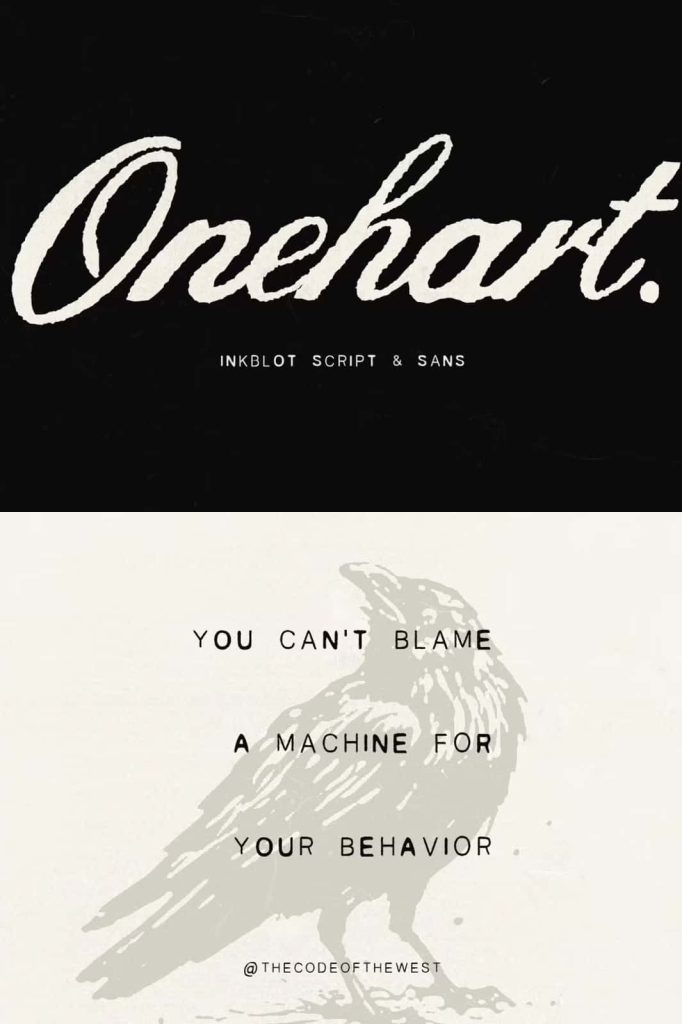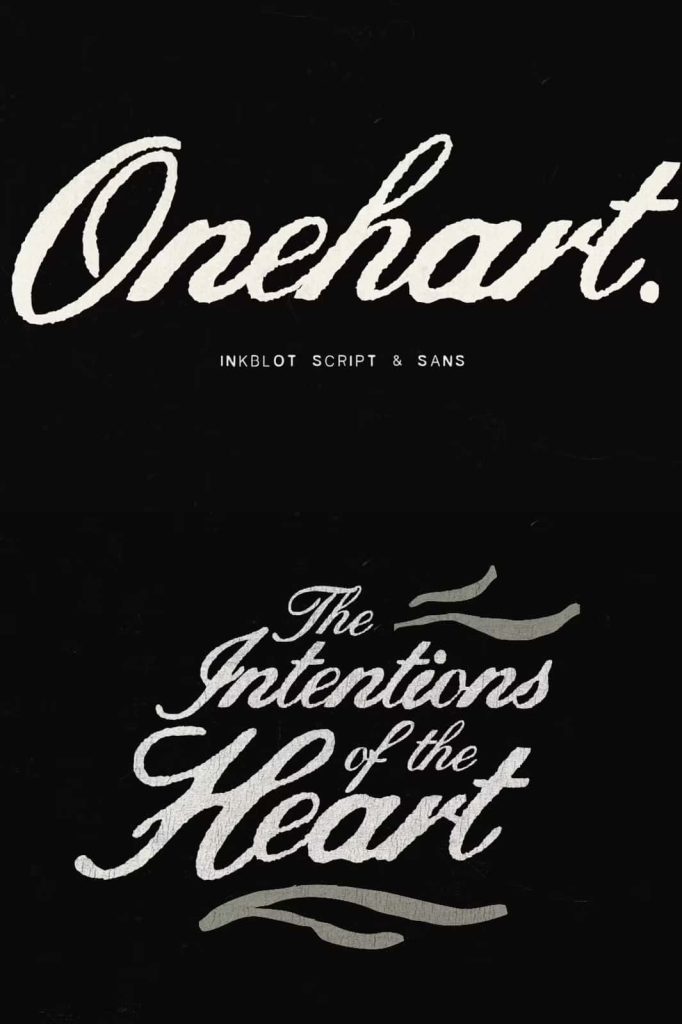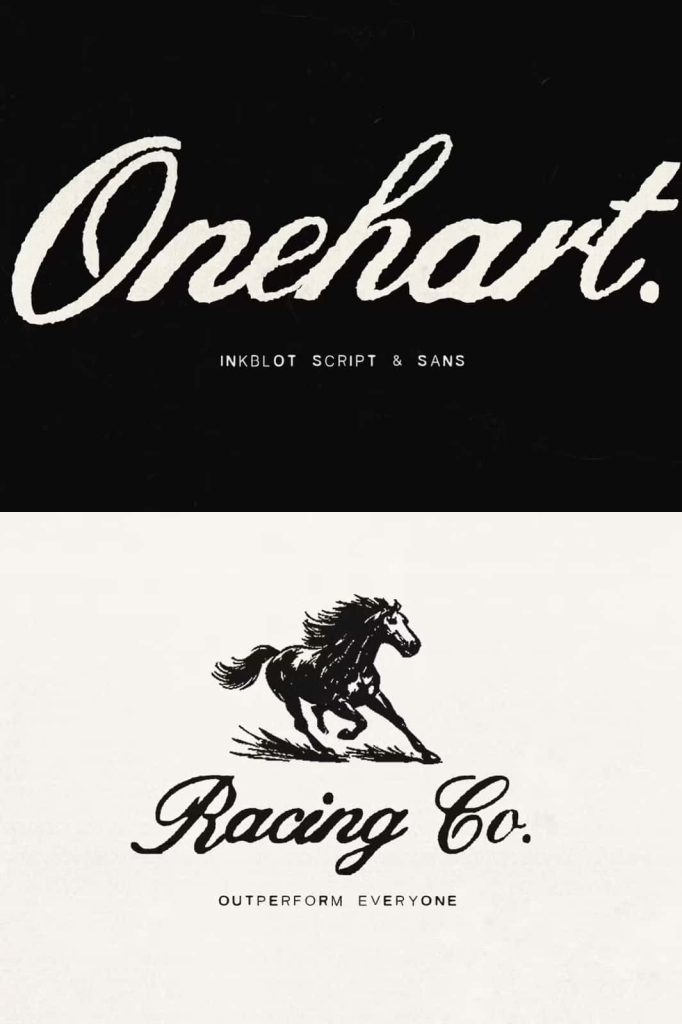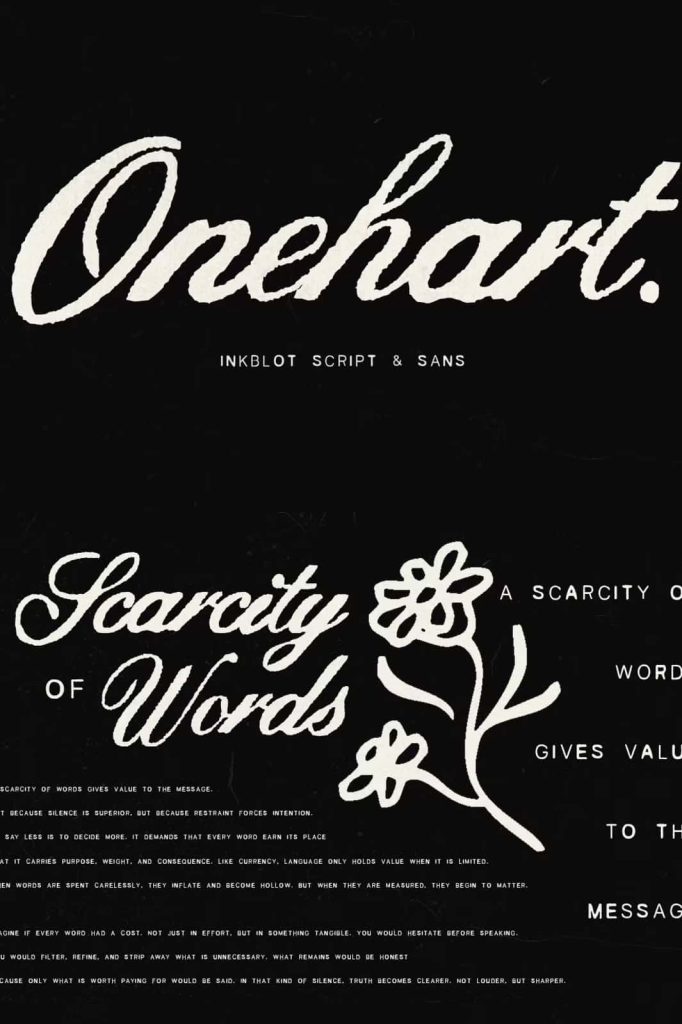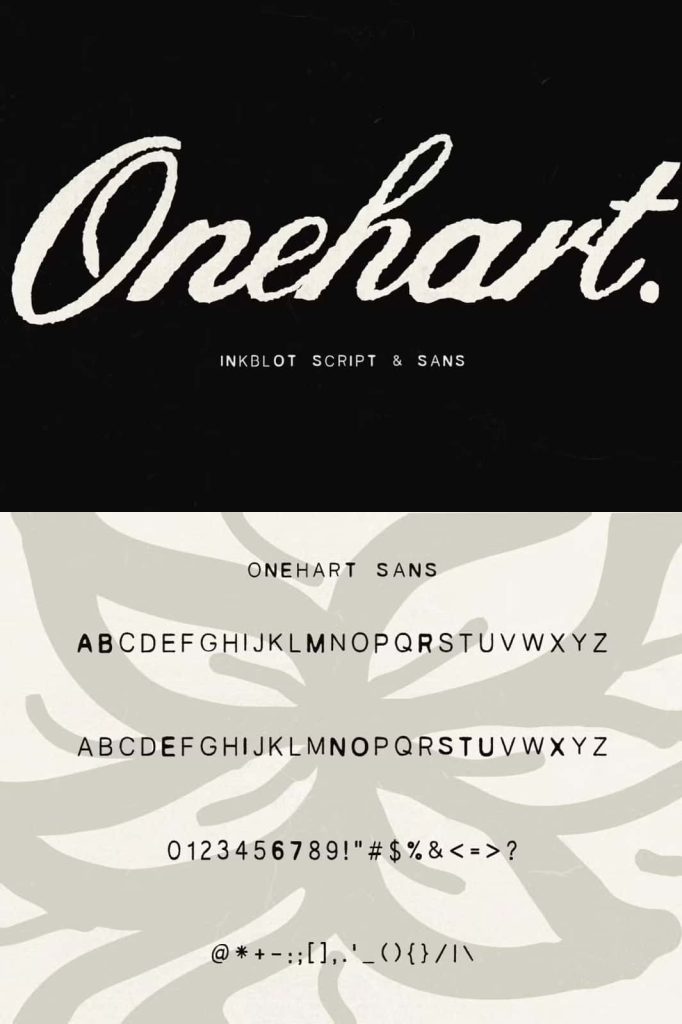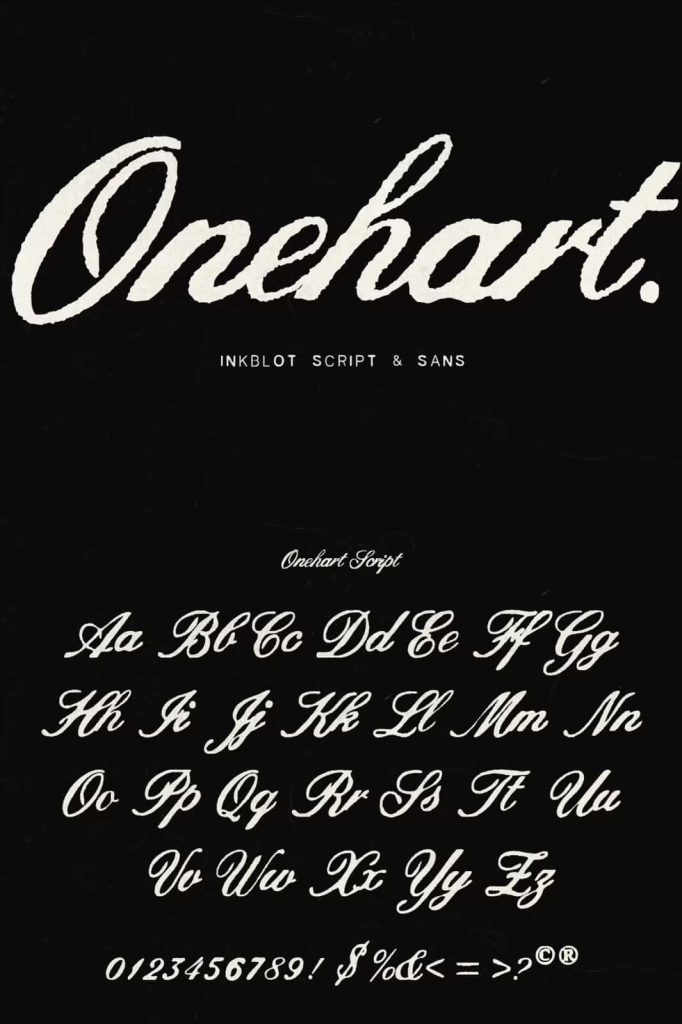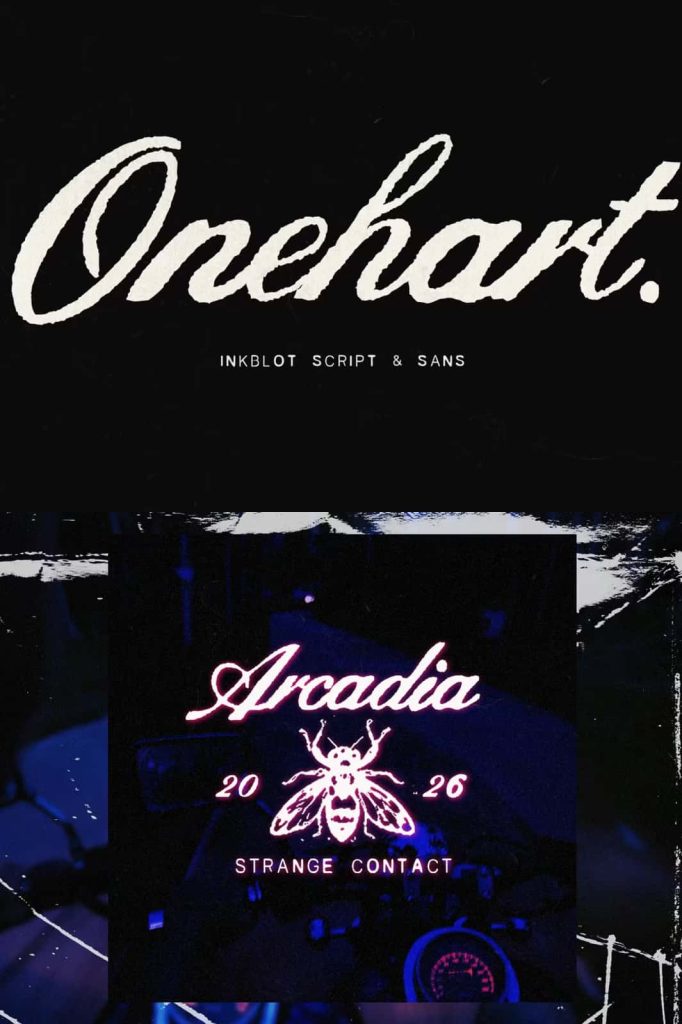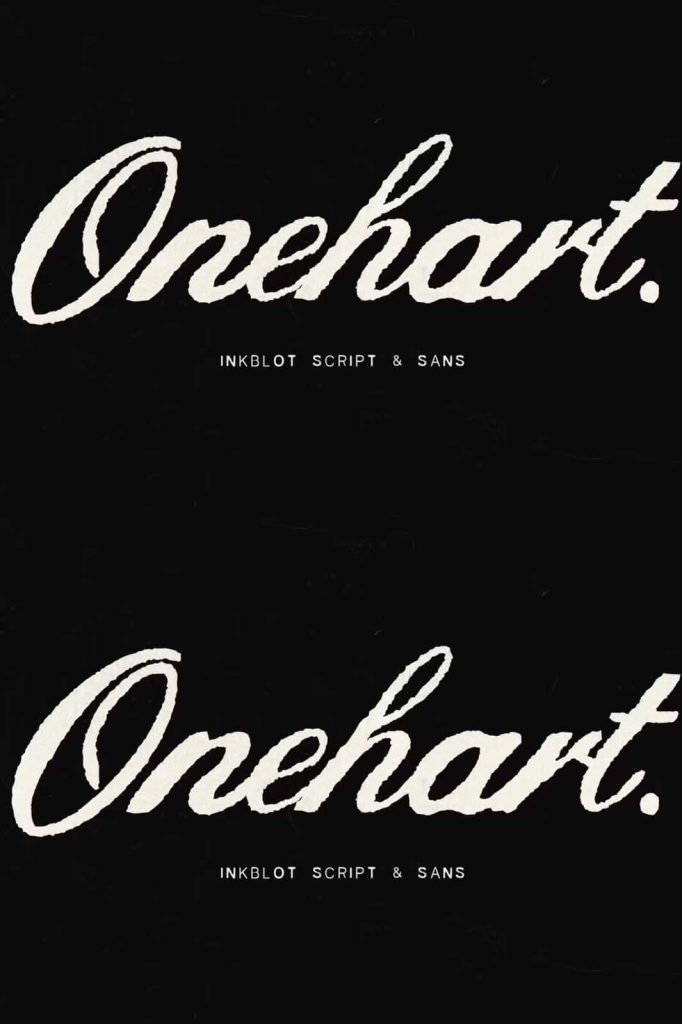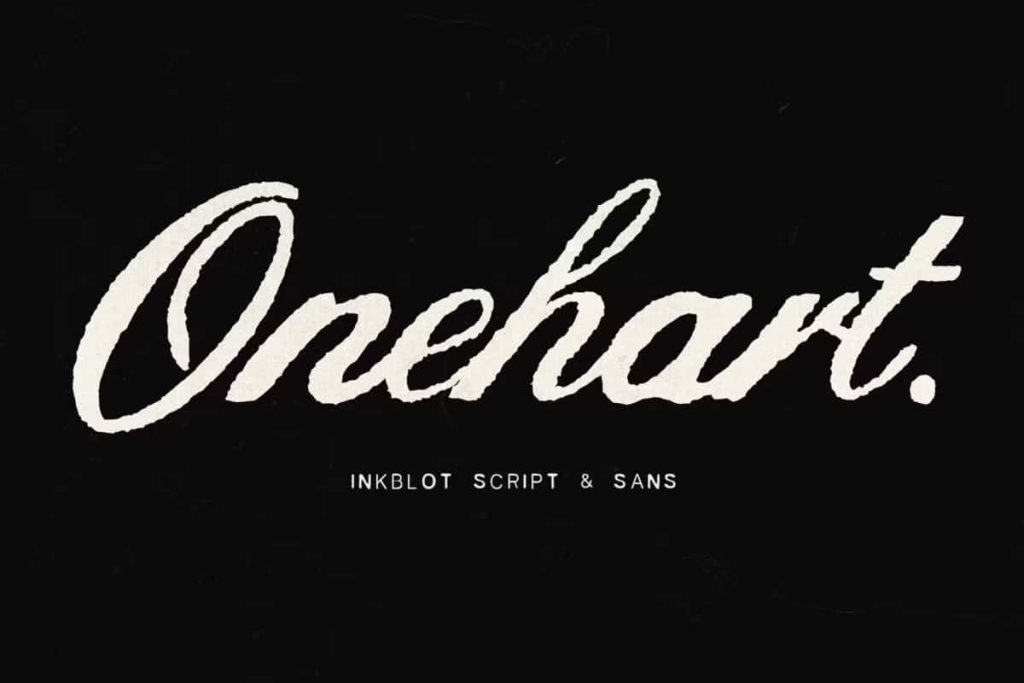
Onehart Script & Sans
Onehart Script & Sans Font Duo – An Artistic Typeface Inspired by Handcrafted Ink and DIY Creativity
Onehart Script & Sans is a unique and expressive font duo that blends handcrafted artistry with modern digital refinement. Inspired by emotional brush strokes, fabric ink textures, and the creative energy of DIY screen-printed artwork, this typeface combination captures the beauty of imperfection while delivering exceptional versatility for contemporary design projects.
Drawing inspiration from customized blue jeans, handmade prints, and artistic street culture, Onehart Script & Sans offers a distinctive visual identity that feels personal, authentic, and creative. The combination of an organic script font and a complementary sans serif creates endless opportunities for designers, marketers, content creators, and brands seeking typography that stands apart from conventional designs.
Whether you are developing a memorable brand identity, creating impactful social media graphics, designing product packaging, producing digital presentations, or crafting inspirational quotes, Onehart Script & Sans provides the perfect balance of emotion, creativity, and readability.
A Typeface Inspired by Artistic Expression
Onehart Script & Sans celebrates the raw beauty of handmade creativity. The font duo reflects the natural flow of ink on fabric, the textured appearance of screen-printed artwork, and the individuality that comes from handcrafted design. Rather than pursuing perfect uniformity, the typefaces embrace subtle imperfections that add character and authenticity to every project.
This artistic approach allows designers to create work that feels more human and emotionally engaging. The organic details found throughout the font duo help establish a stronger connection between brands and audiences by delivering visual experiences that feel genuine and memorable.
The result is a typeface family that combines artistic freedom with professional functionality, making it suitable for both personal and commercial design applications.
Onehart Script – Expressive Handwritten Typography
Onehart Script features flowing handwritten letterforms that showcase natural movement, emotional energy, and creative spontaneity. Its varying line weights mimic the appearance of real ink strokes, creating an organic texture that instantly captures attention.
The inconsistency in stroke thickness gives the script a handcrafted quality that feels authentic and expressive. Even when used sparingly, the font creates a strong visual impact and helps important words stand out. Designers can use Onehart Script to add personality and warmth to branding materials, marketing campaigns, and artistic compositions.
Its versatile style works beautifully across a wide range of industries, including fashion, lifestyle, beauty, creative services, entertainment, and handmade products. The script font communicates confidence, individuality, and creativity while maintaining readability and elegance.
Best Uses for Onehart Script
• Brand logos and signatures
• Product packaging
• Social media graphics
• Inspirational quotes
• Website headers
• Marketing materials
• Event invitations
• Creative presentations
Onehart Sans – A Playful and Engaging Companion Font
Onehart Sans serves as the perfect complement to the expressive script font. Designed with balanced spacing and playful character, this sans serif typeface adds structure and clarity while maintaining the artistic spirit of the overall font family.
The carefully considered line spacing creates harmony with the font’s subtle ink-blot details, resulting in typography that feels modern, approachable, and visually engaging. Onehart Sans works exceptionally well for supporting text, quotes, messaging, headlines, and branding materials where readability remains essential.
Its versatile design allows it to function effectively as both a standalone typeface and as part of the complete Onehart font duo. This flexibility makes it a valuable tool for designers seeking consistency across various communication channels.
Perfect for Modern Branding Projects
Typography plays a vital role in shaping brand perception, and Onehart Script & Sans offers a distinctive voice that helps brands stand out in competitive markets. The combination of handcrafted elegance and modern simplicity creates a memorable visual identity that resonates with audiences.
Businesses can use this font duo to establish branding that feels authentic, creative, and approachable. Its artistic personality works particularly well for fashion labels, creative agencies, lifestyle brands, beauty companies, artisan products, online stores, and personal brands.
The contrast between expressive script and structured sans serif enables designers to create balanced brand systems that communicate both creativity and professionalism.
Create Powerful Quotes and Visual Messaging
Onehart Script & Sans excels in quote design and visual communication. The expressive nature of the script font draws attention to key phrases, while the sans serif provides clear supporting text that enhances readability and impact.
Content creators, influencers, and marketers can use this font duo to create engaging social media posts, promotional graphics, motivational content, and digital campaigns that encourage audience interaction. The combination of personality and clarity helps messages feel more compelling and memorable.
Ideal for Digital Presentations and Creative Content
In modern digital environments, strong typography helps communicate ideas more effectively. Onehart Script & Sans provides the flexibility needed for presentation slides, online content, advertising materials, website graphics, and multimedia projects.
The expressive script can highlight key messages and important sections, while the sans serif ensures information remains organized and easy to read. This balance makes the font duo an excellent choice for professional presentations that require both creativity and clarity.
Versatile for Print and Packaging Design
Onehart Script & Sans performs beautifully across print applications. Designers can use it to create attractive packaging, product labels, brochures, catalogs, posters, and promotional materials that leave a lasting impression.
The handcrafted appearance of the fonts helps products feel more authentic and unique, making them especially effective for handmade goods, artisan brands, boutique collections, and specialty products. The font duo adds visual interest while maintaining a professional and polished appearance.
Popular Design Applications
• Logo design and brand identity
• Product packaging and labels
• Social media graphics
• Quote and typography artwork
• Digital presentations
• Website banners and headers
• Fashion and lifestyle branding
• Advertising campaigns
• Event invitations and stationery
• Print marketing materials
Why Choose Onehart Script & Sans?
Onehart Script & Sans offers a refreshing combination of artistic expression and functional design. Inspired by fabric ink textures, screen-printed artwork, and handcrafted creativity, this font duo delivers a distinctive personality that enhances both digital and print projects.
The expressive script font brings emotion and individuality to designs, while the complementary sans serif provides balance, structure, and readability. Together, they create a versatile typography system capable of supporting branding, packaging, social media content, visual messaging, and countless other creative applications.
For designers seeking typography that feels authentic, modern, and creatively inspired, Onehart Script & Sans is an excellent choice. Its handcrafted character and professional versatility make it a valuable addition to any design toolkit, helping projects achieve greater visual impact and stronger audience engagement.